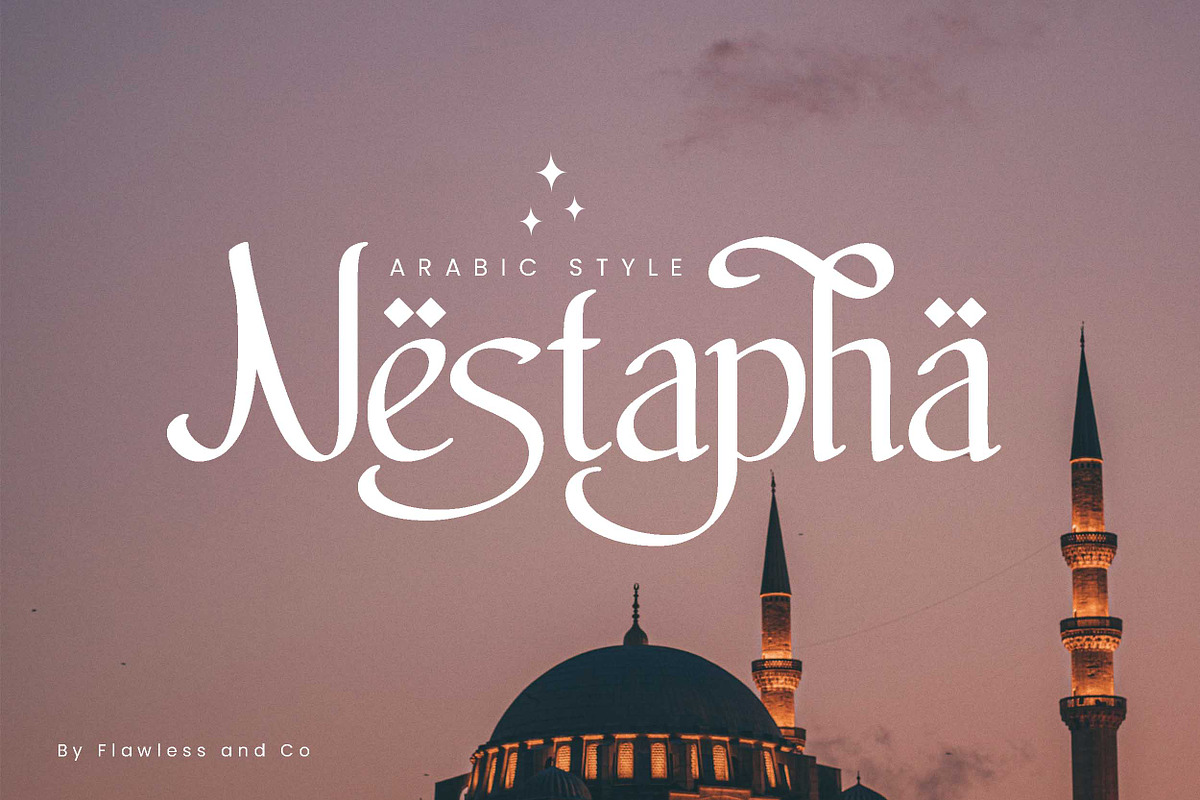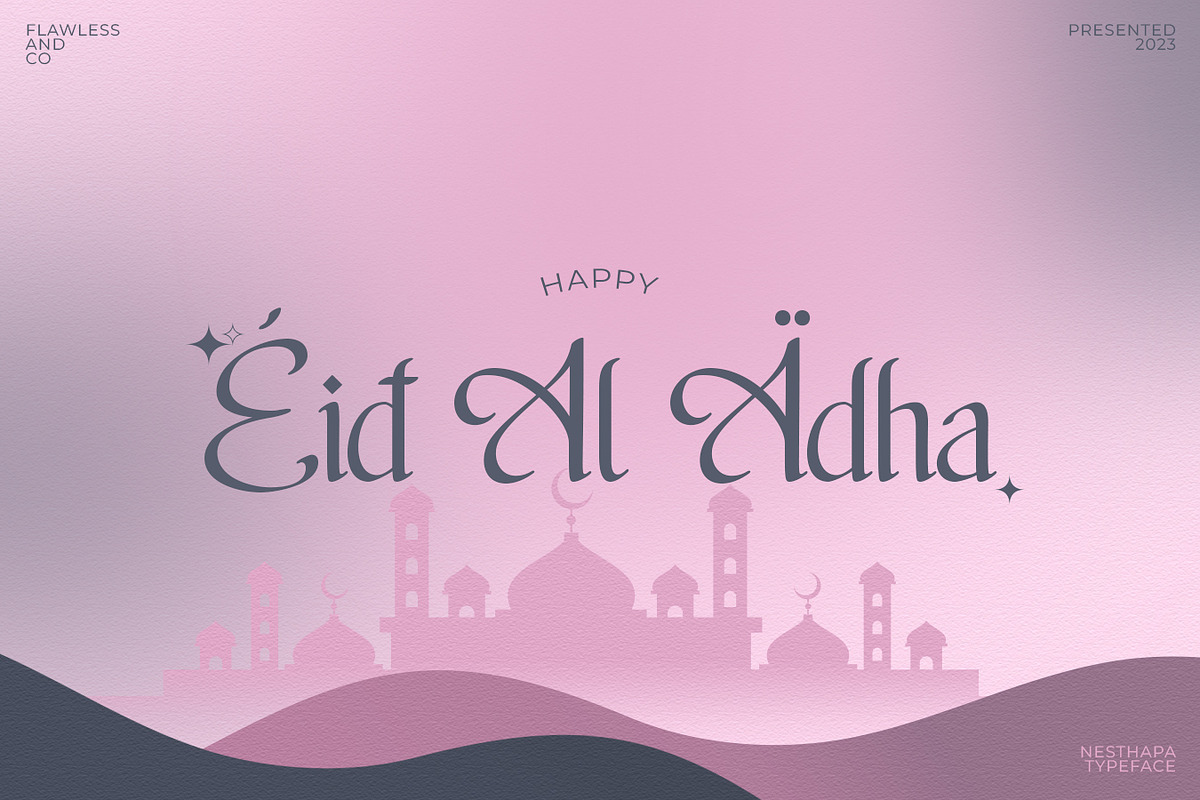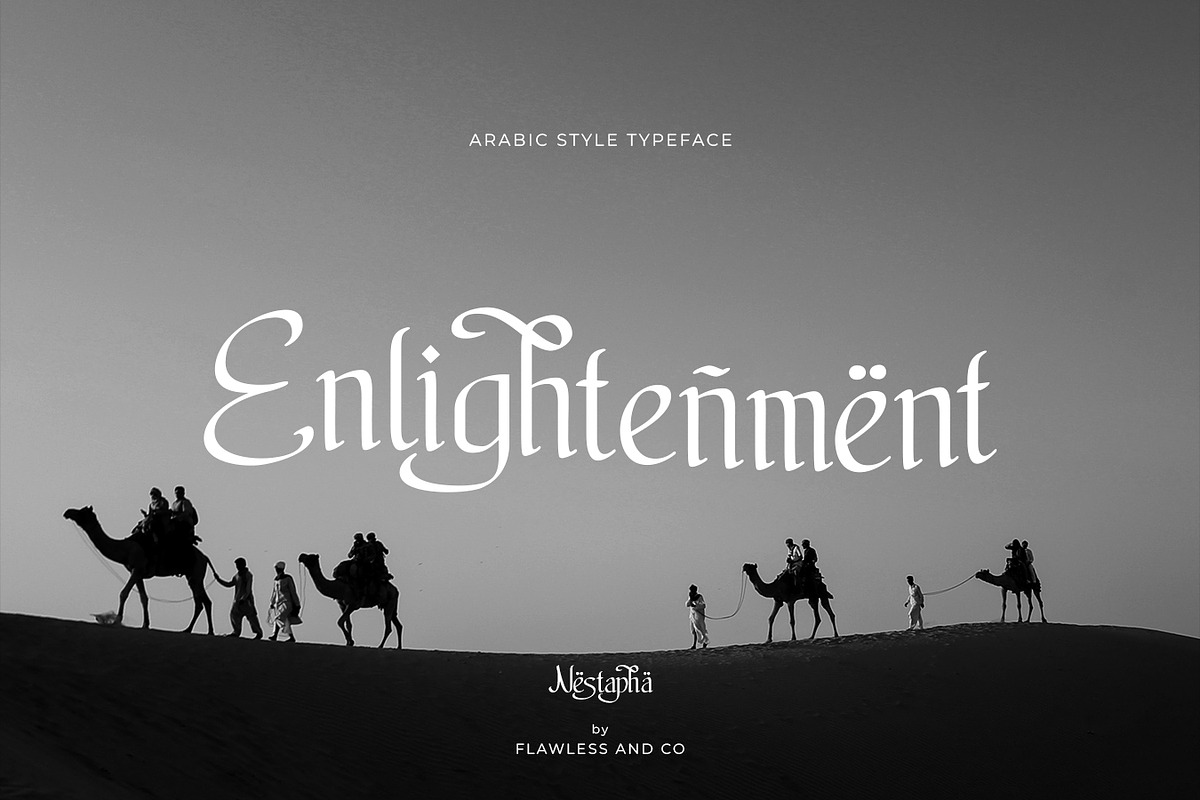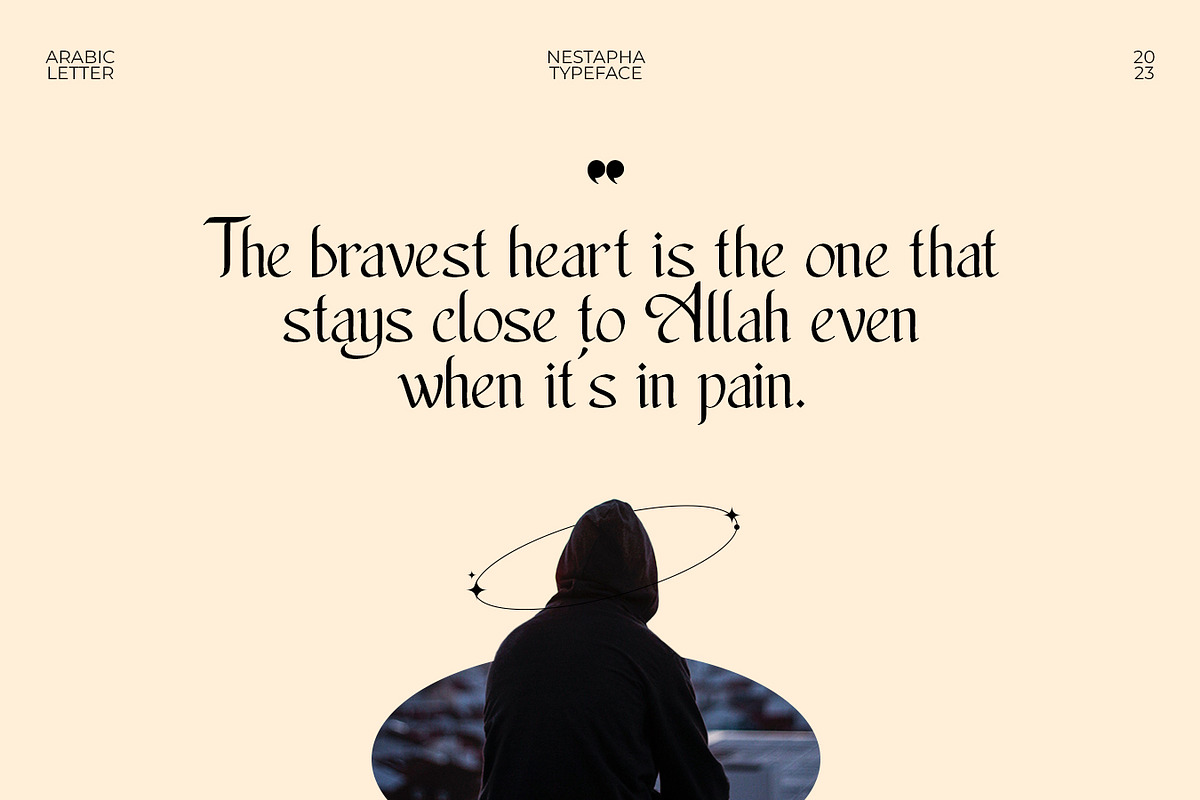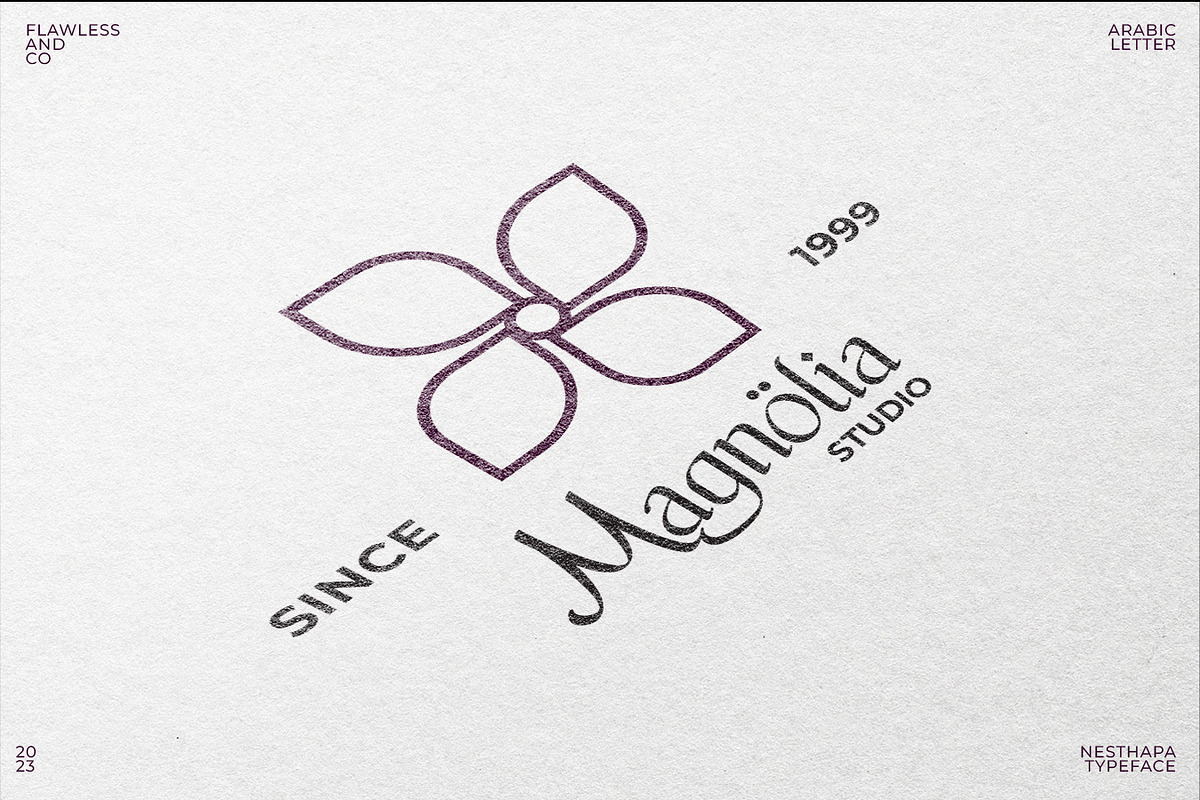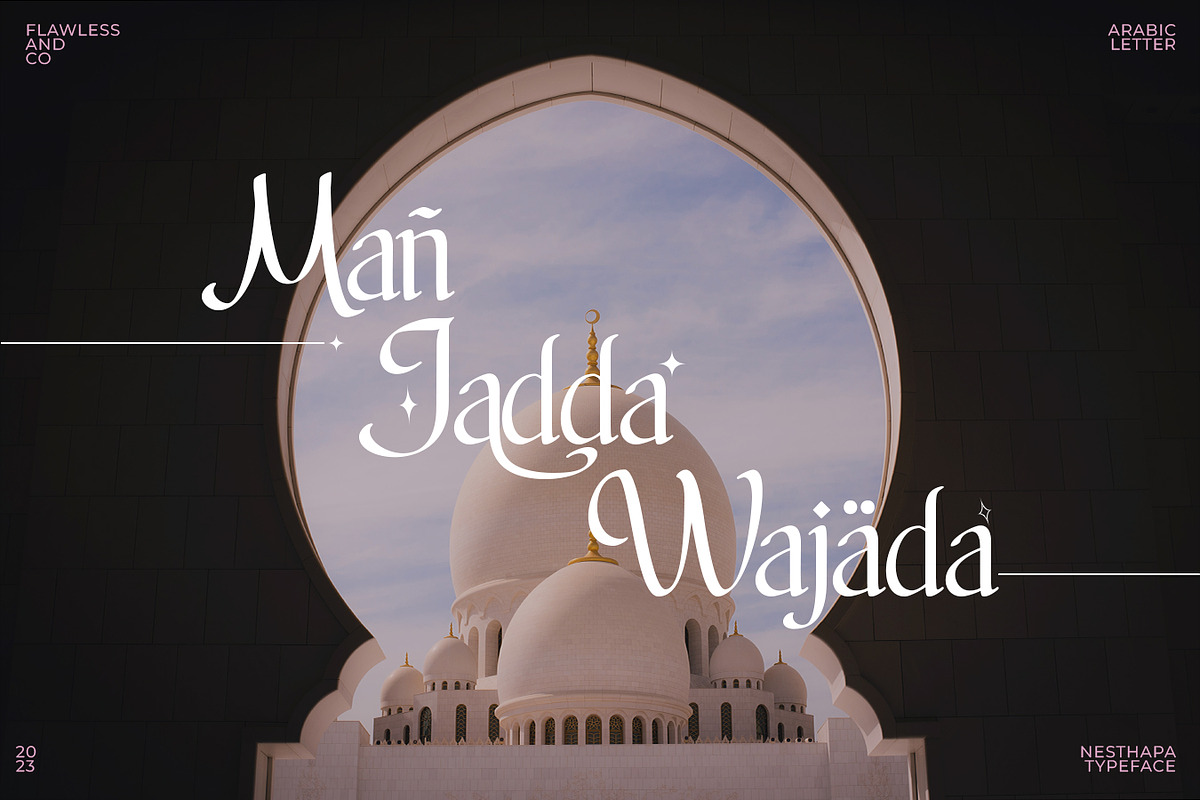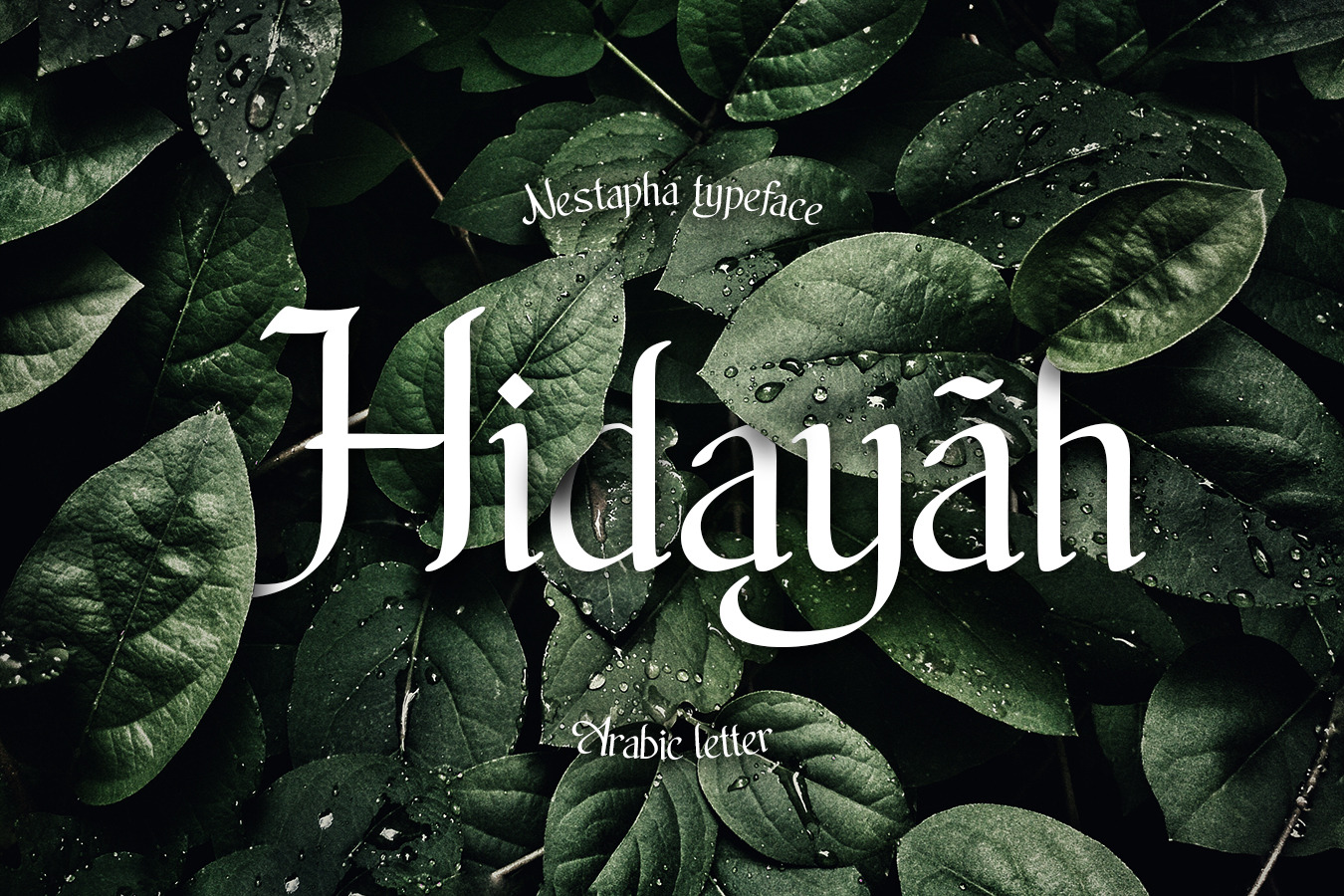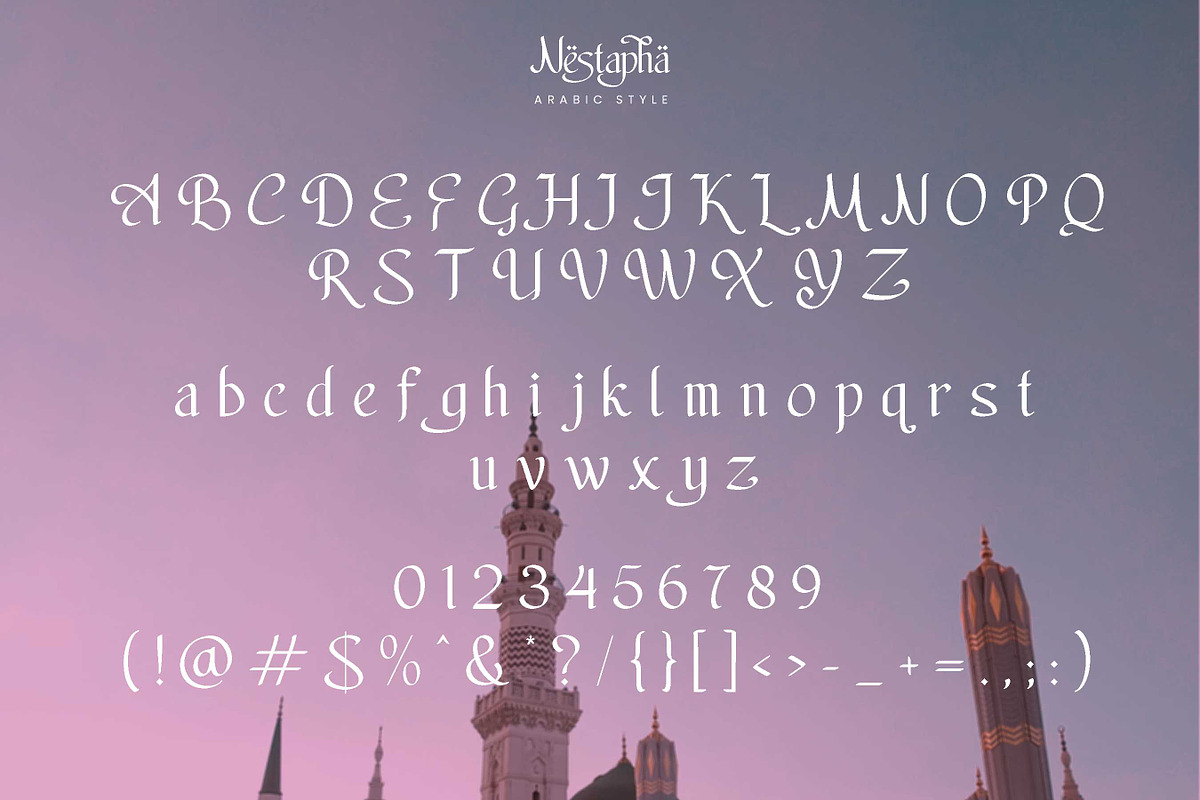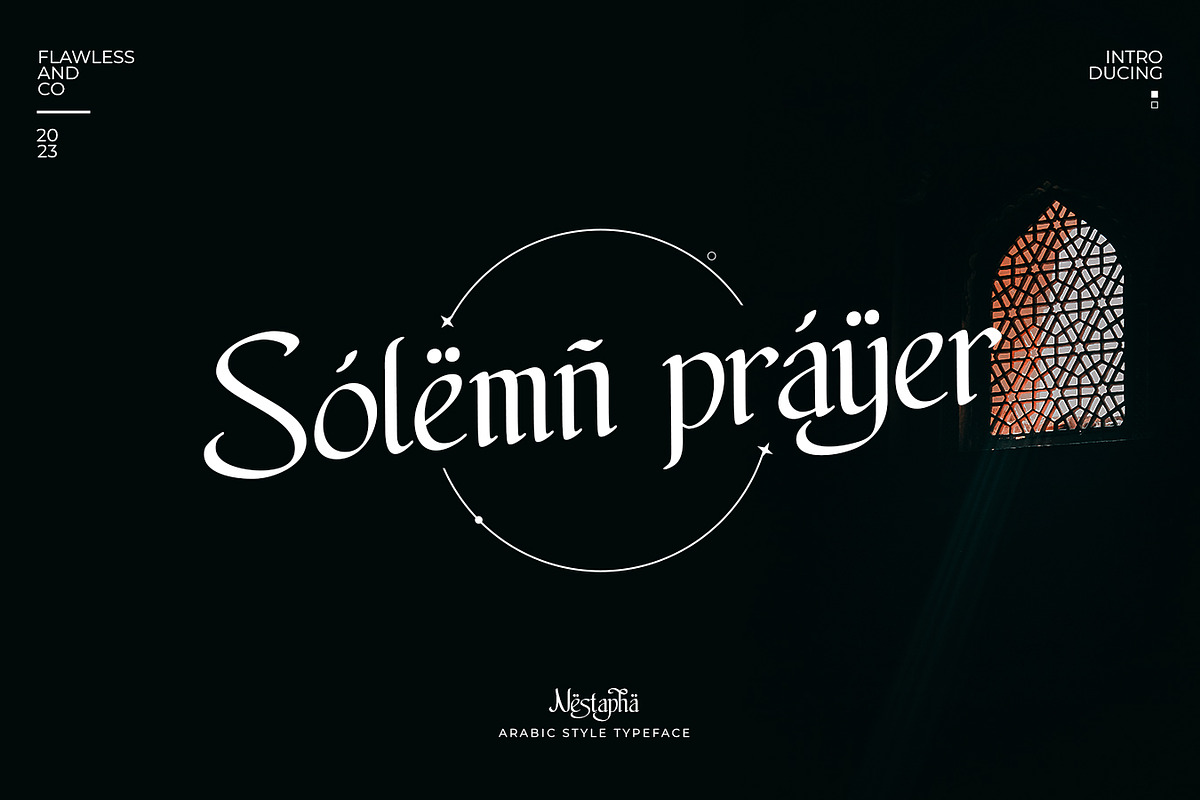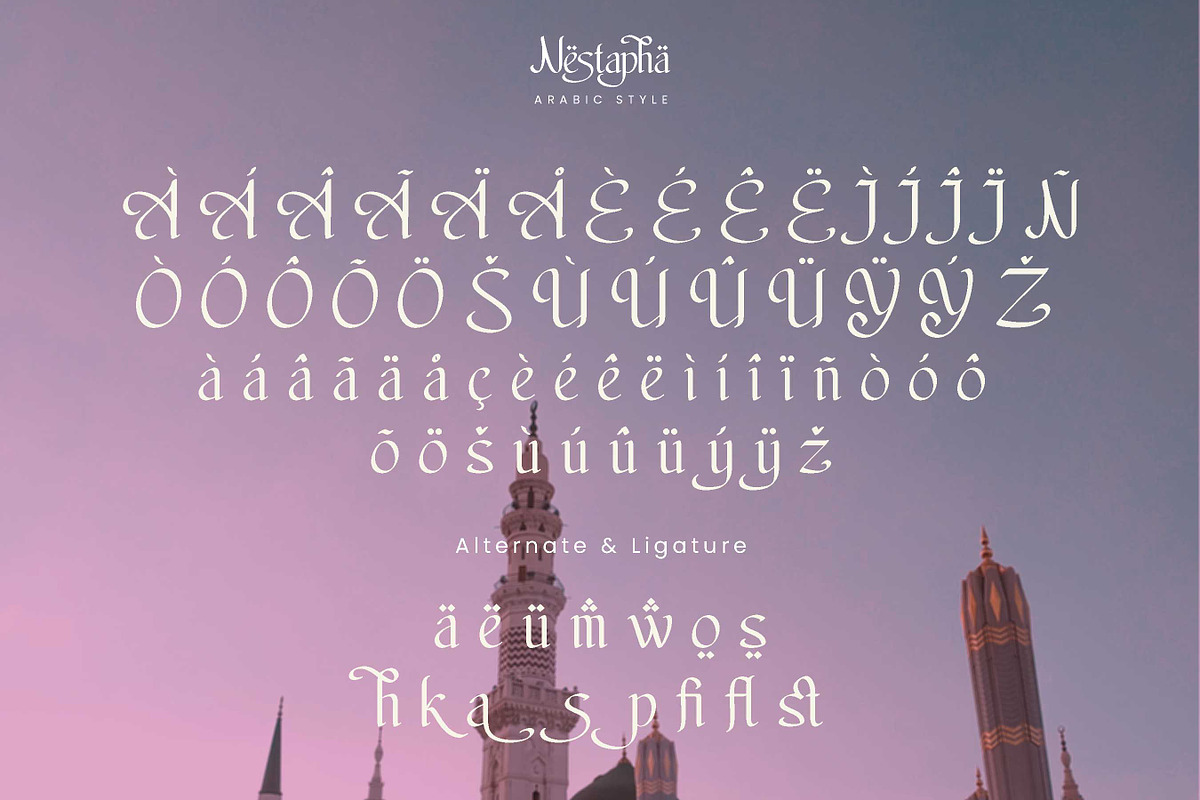
Nestapha - Islamic Font
introducing our new Arabic Font, Modern Font with Elegant Style is perfect for branding, logos, invitation, master heads, and more.
Multilingual Uppercase alphabet A-Z Lowercase alphabet a-z Alternate Character Numbers 0-9 Some punctuation